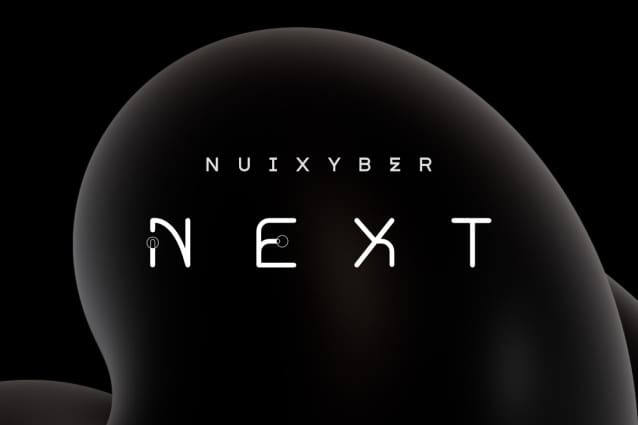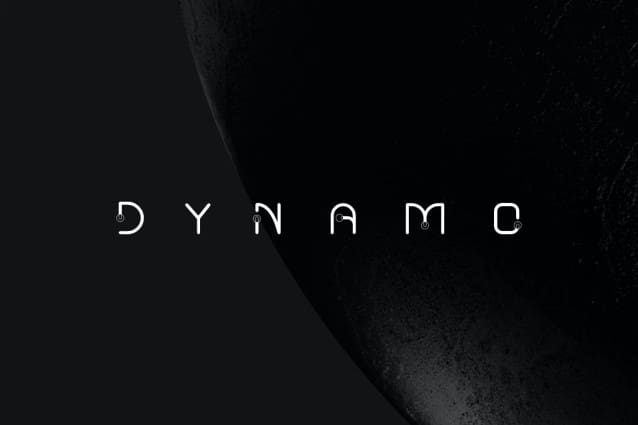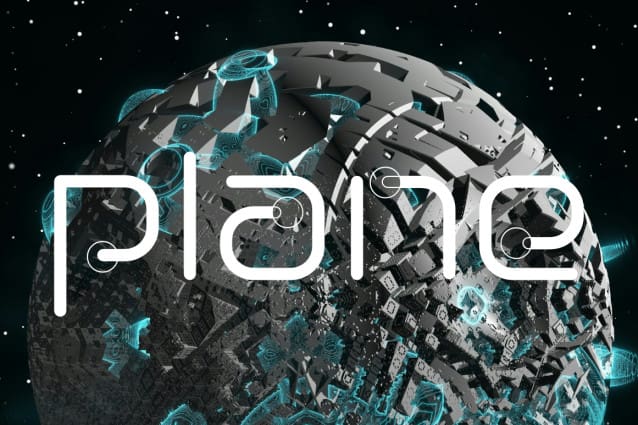
Nuixyber Next Font
Nuixyber Next Font is a cutting-edge display font that draws inspiration from quantum mechanics and futuristic grid structures. creating a sense of order and complexity. This font exudes a sophisticated and advanced aesthetic.